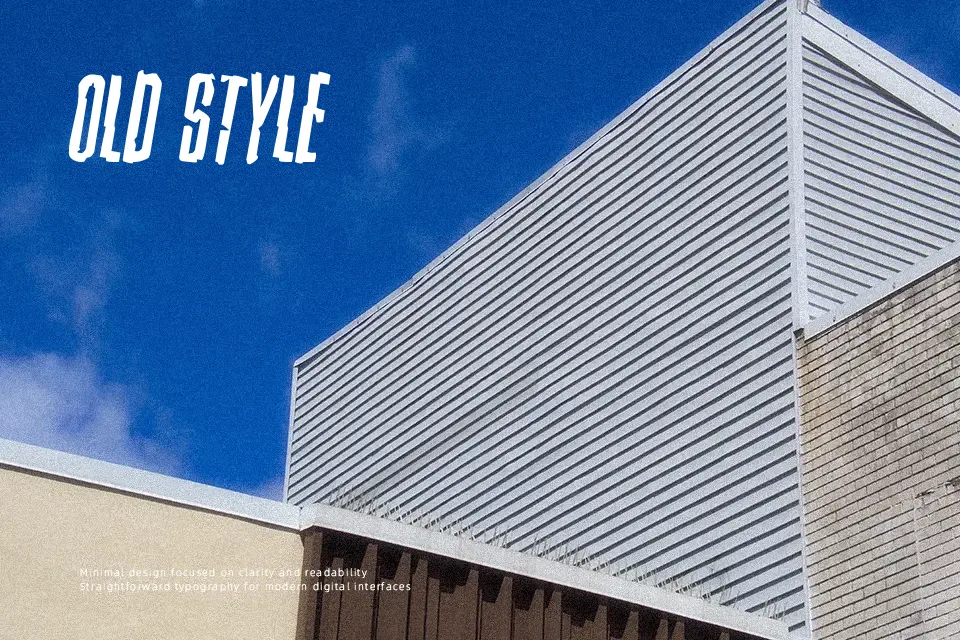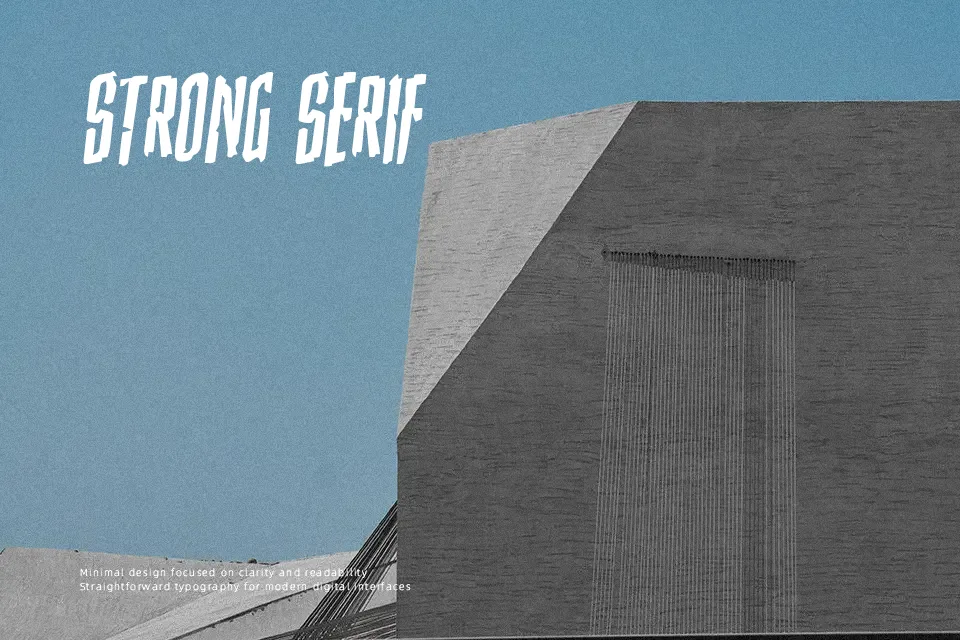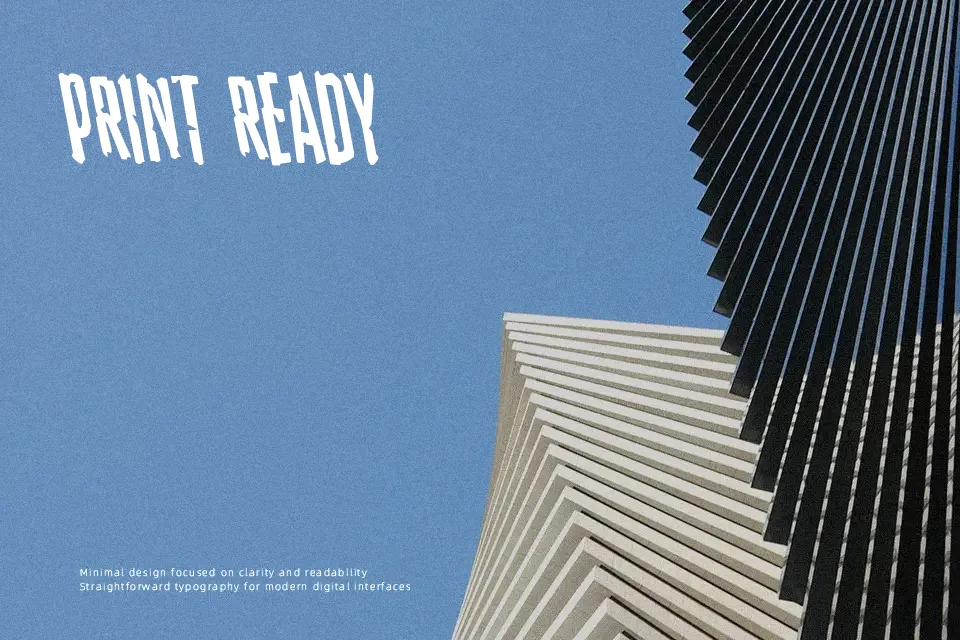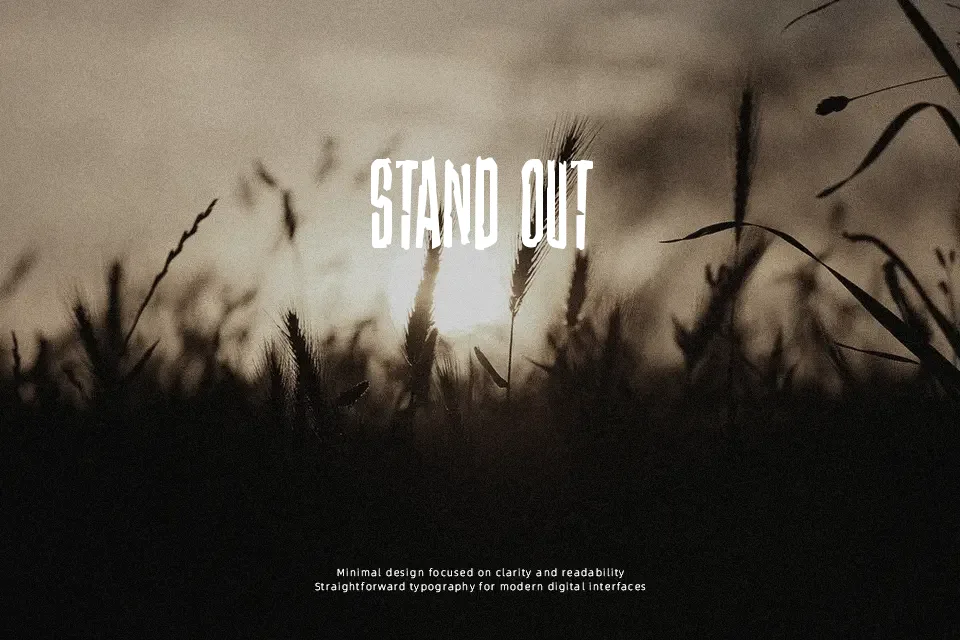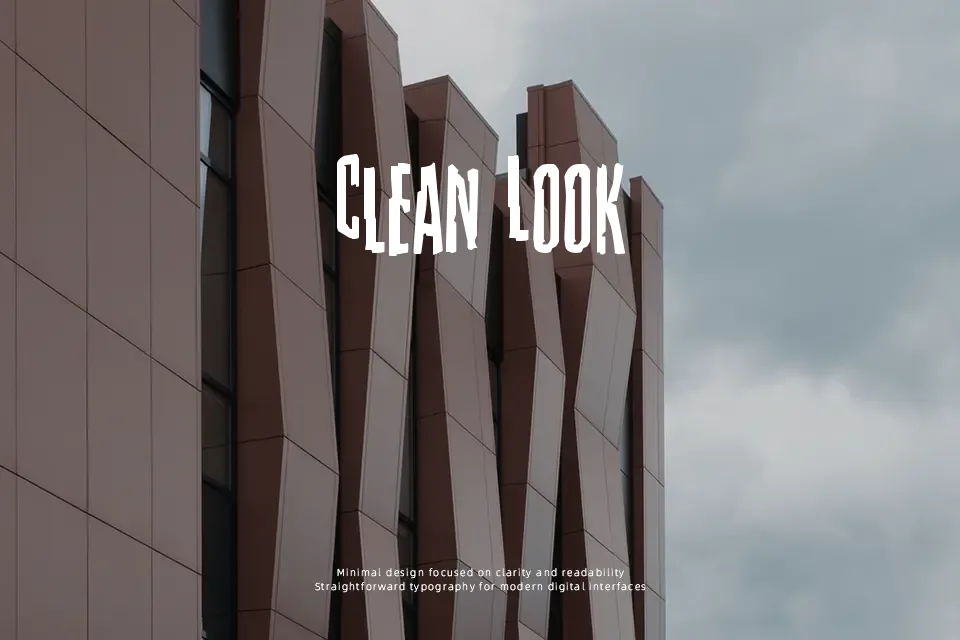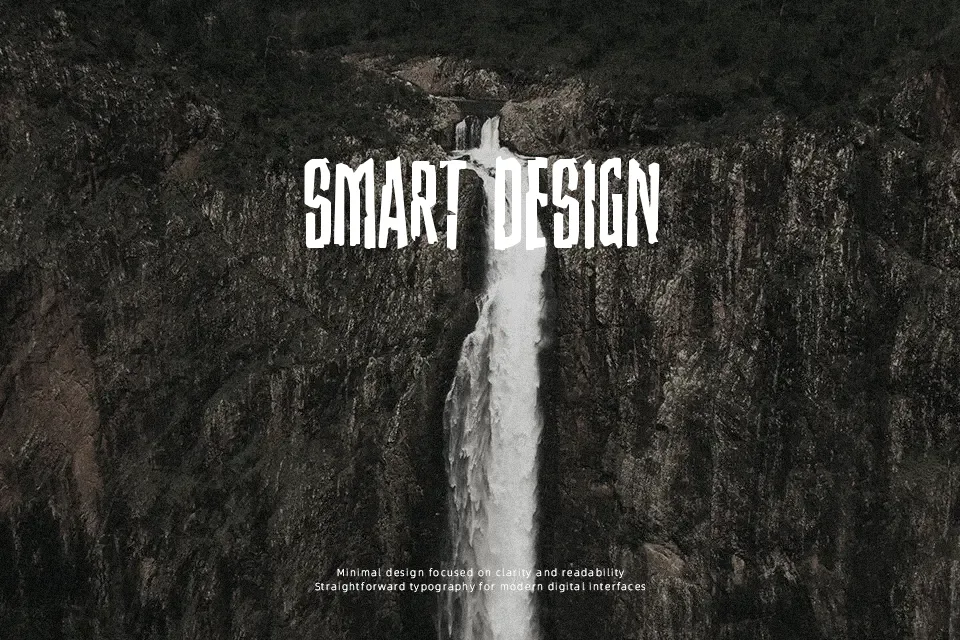
Stranger Danger Font
Stranger Danger Font uses tall, condensed letterforms with pointed terminals, uneven contours, and a distressed display-oriented rhythm. Its strokes appear largely monoline but shift through sharp cuts and angled details, giving uppercase text a tense, fragmented silhouette. Spacing is relatively compact, so the design holds together effectively in large headlines and short title treatments. Numerals and punctuation follow the same jagged visual language. The typeface is most convincing when used sparingly for horror-themed graphics or dramatic screen-style lettering; its decorative shapes become harder to parse in small text and are not comfortable for continuous reading.
Best For: horror film titles,Halloween posters,game cover artwork,dramatic social media graphics
Perfect for film, gaming, and halloween, with a dark and condensed style.